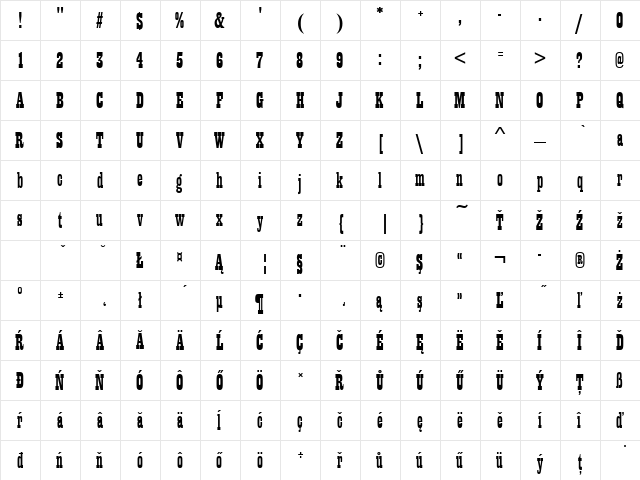
PlaybillDEE Regular
Design Context for PlaybillDEE Typeface
PlaybillDEE offers clean, dependable letterforms without strong stylistic allegiance, making it a practical choice for designers who need flexibility.
Pro Tip: Use PlaybillDEE in both headline and body roles to test its range before committing to a single application.